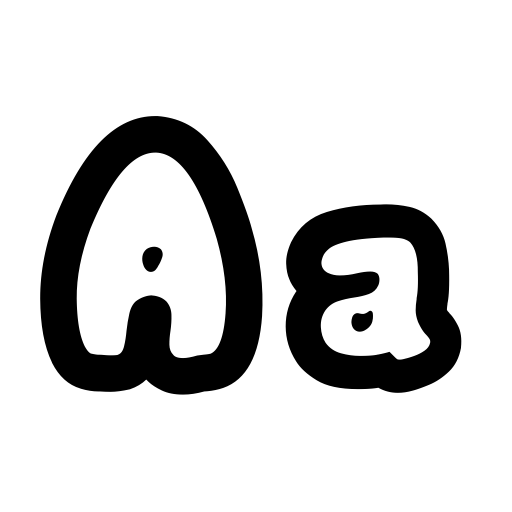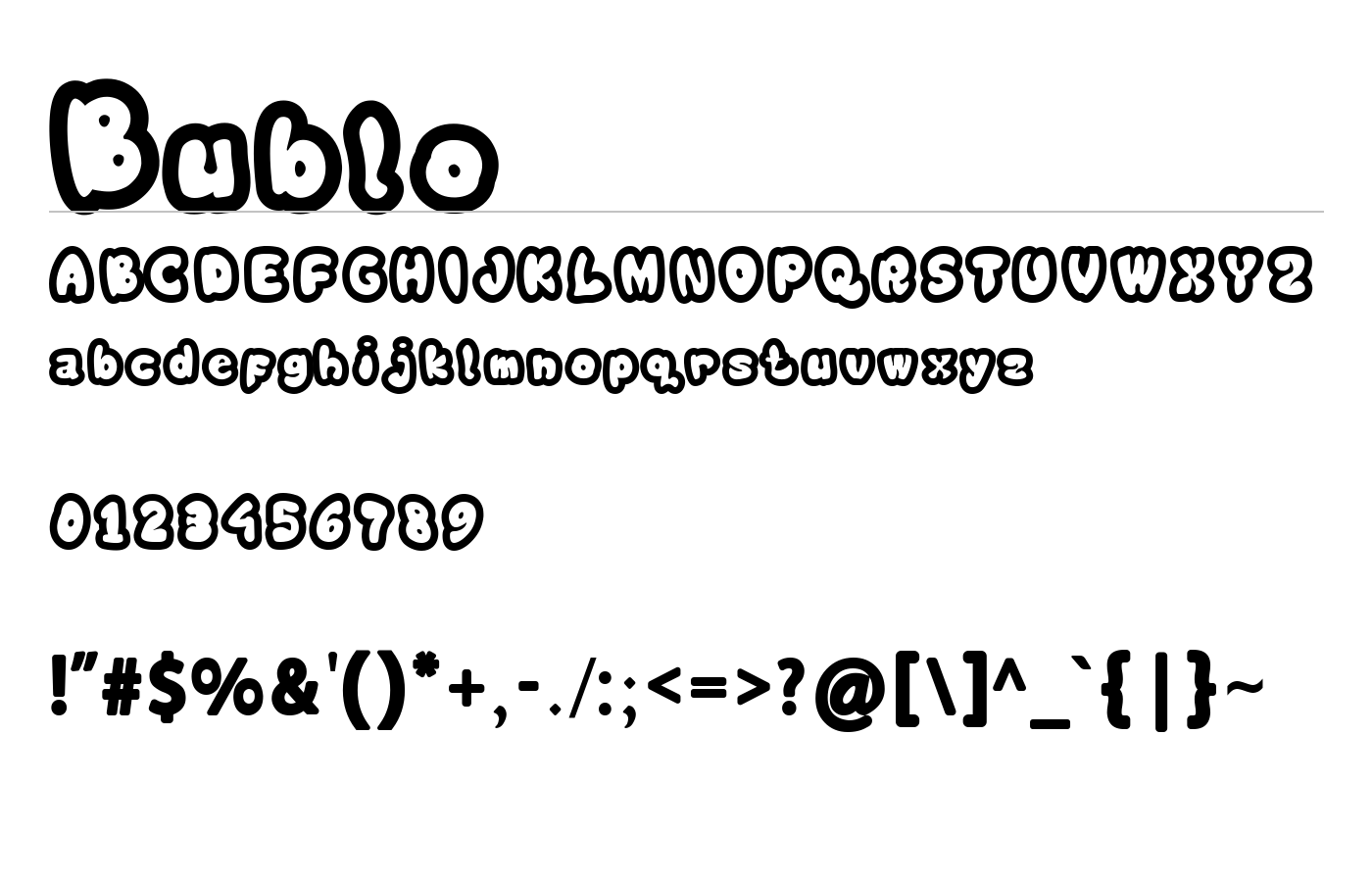
Bublo is a playful, rounded display font with thick, bubbly strokes that give it a fun and friendly character. Its bold weight and soft, irregular shapes make it perfect for eye-catching headlines, children's designs, and casual branding where a lively and approachable feel is desired. This font shines in informal and creative contexts, adding a whimsical touch to logos, posters, and packaging.
Bublo Font